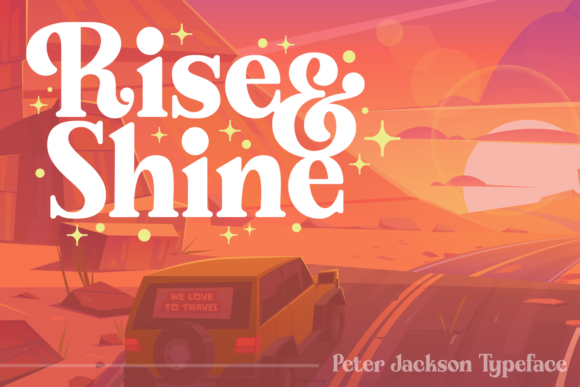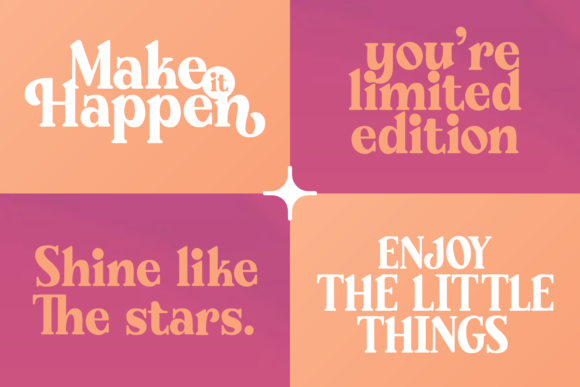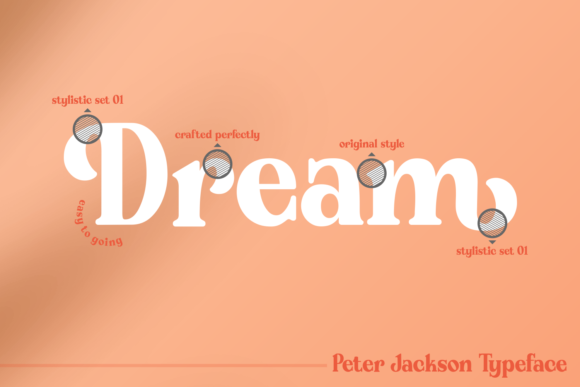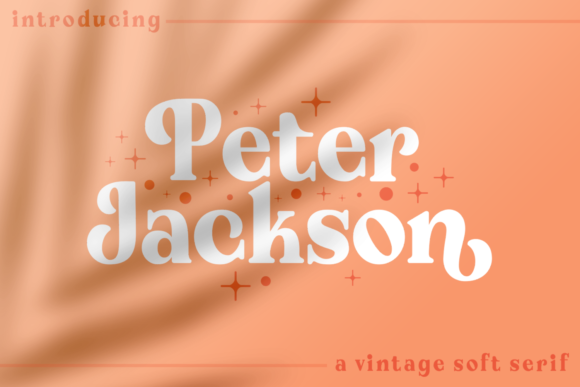
Introduction to Peter Jackson Font
Peter Jackson is a gorgeous vintage styled display font, crafted to give your headlines and logotype projects a stylish touch.
This font reads as strong, confident, and dynamic and can add tons of nostalgic character to your designs .